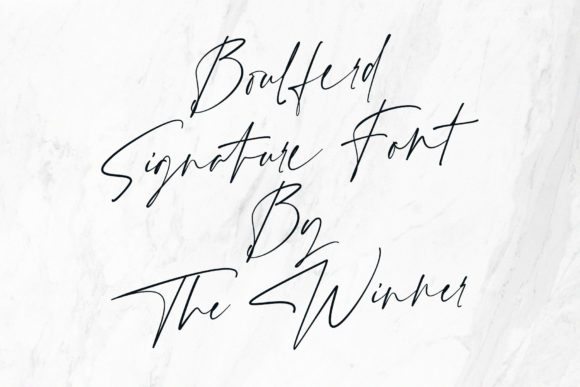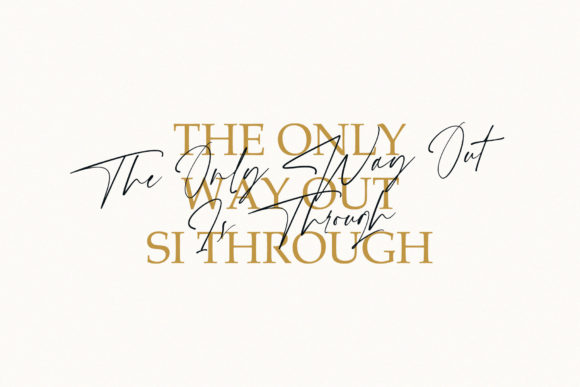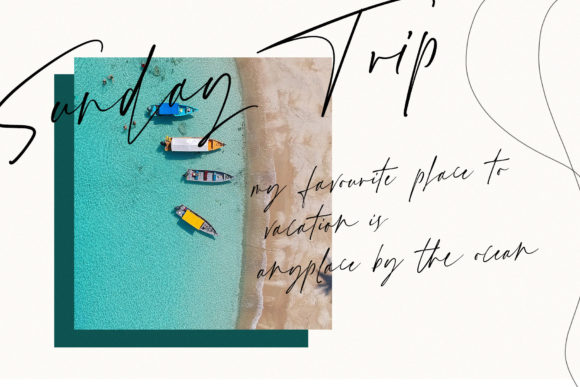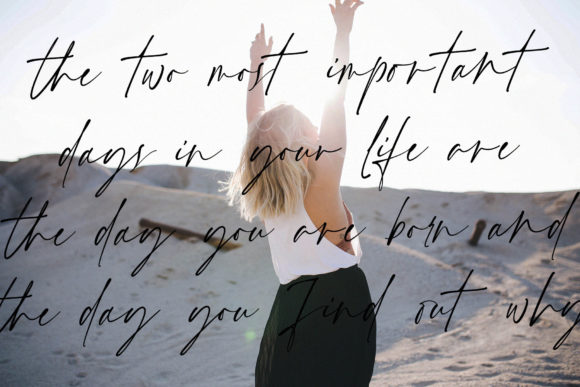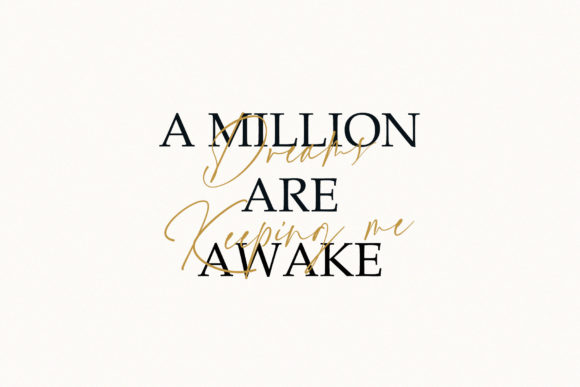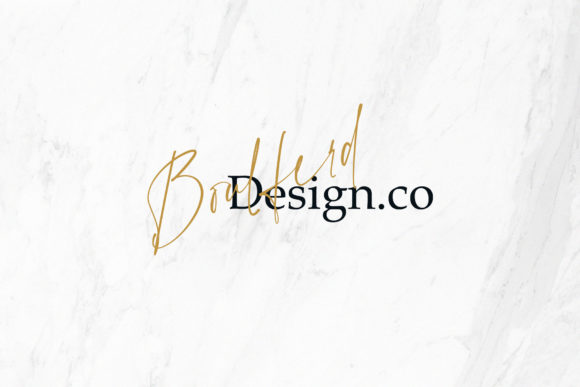
The Elegant Boulferd Font: Elevate Your Designs with Caligraphic Flair
I’ll never forget the time I was working on a wedding invitation project, and my client requested a font that exuded elegance and sophistication. I scoured the internet, trying out font after font, but nothing seemed quite right. That was until I stumbled upon the beautiful Boulferd font. Its delicate caligraphic script and stylish flair instantly captured the essence of the occasion, and I knew I had found the perfect fit. In this article, I’ll share with you why Boulferd is a game-changer for designers, crafters, and creative hobbyists alike.
An Honest Review of Boulferd Font
What I Love About Boulferd ✨
• 💫 Elegant and sophisticated design that’s perfect for high-end projects
• ✅ Delicate caligraphic script that adds a touch of whimsy and romance
• 🎨 Highly versatile and can be used for a wide range of creations, from wedding invitations to branding and packaging
• 👍 Well-suited for digital and print projects, with clear and crisp rendering at various sizes
• ⚠️ Limited availability of bold or heavy weights, which may limit its use for certain projects
• 🤔 Some users may find the font’s delicate nature challenging to read at small sizes
4. Experiment with OpenType features, such as glyphs and stylistic alternates, to add visual interest
The Backstory of Boulferd Font
Boulferd font was designed with the intention of capturing the elegance and sophistication of traditional calligraphy. Its creator drew inspiration from classic scripts and refined them to create a modern, stylish font that’s perfect for a wide range of applications. Whether you’re working on a wedding invitation, a brand identity, or a packaging project, Boulferd is sure to add a touch of luxury and refinement.
What is the best way to use Boulferd font? Boulferd font is highly versatile and can be used for a wide range of projects, from wedding invitations to branding and packaging. Experiment with different OpenType features and glyphs to add visual interest.
Is Boulferd font suitable for body text? While Boulferd font is beautiful and elegant, it may not be the best choice for body text due to its delicate nature. It’s better suited for headlines, titles, and short paragraphs.
What are some common applications for Boulferd font? Boulferd font is commonly used for wedding invitations, branding and packaging, stationery, and digital projects such as social media graphics and website headers.